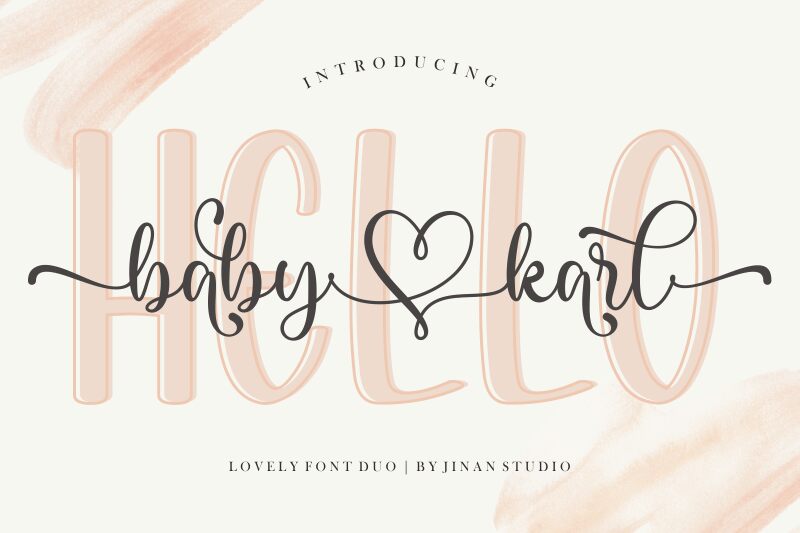
Hello Baby Karl Sans
Hello Baby Karl Sans font is a creation of Ainun Jinan whose style can be described as handwritten. The font has a friendly, approachable look in its appearance that also reflects elegance and modernity. Its casual aspect feels warm and inviting for readers interested in instantly glancing at a written design or board.
Posters, banners, packaging labels, book covers, invitations such as wedding invitations are all perfect use cases for Hello Baby Karl Sans. This free handwritten font can give authenticity to texts in websites and blogs while looking great on flyers, letterheads or greeting cards.